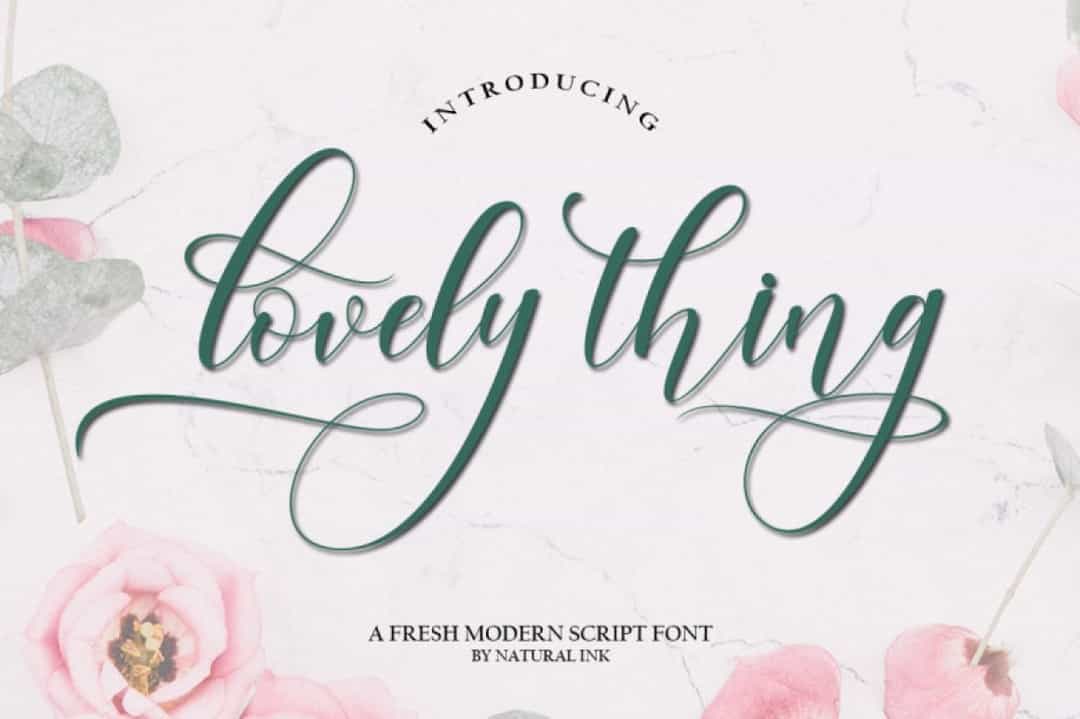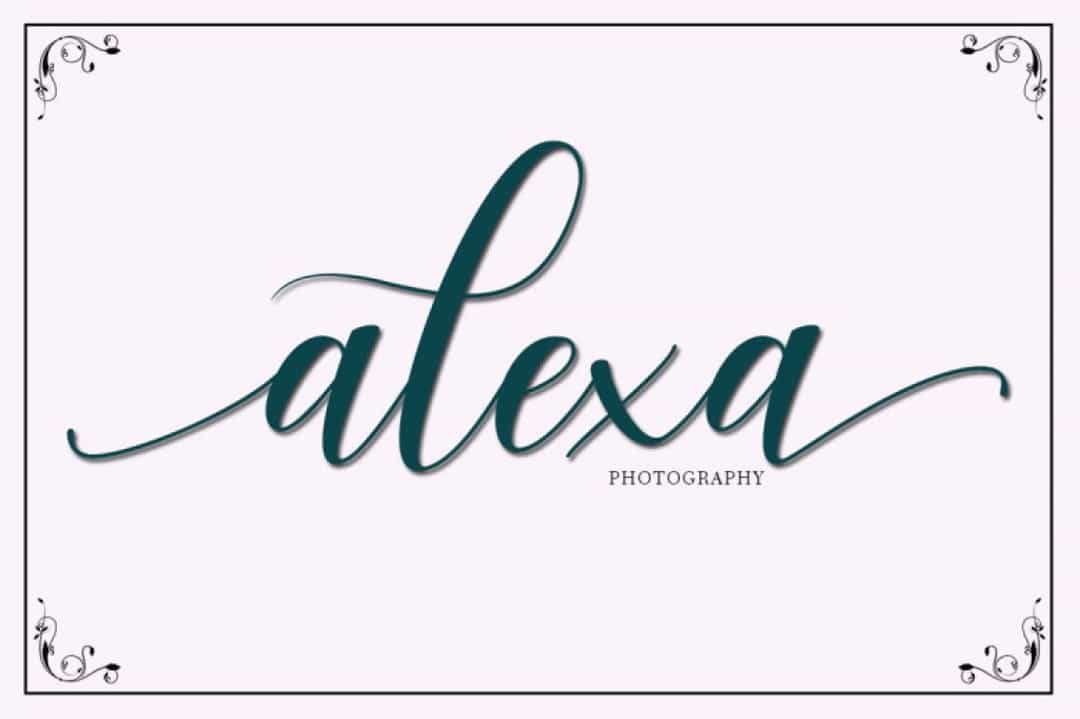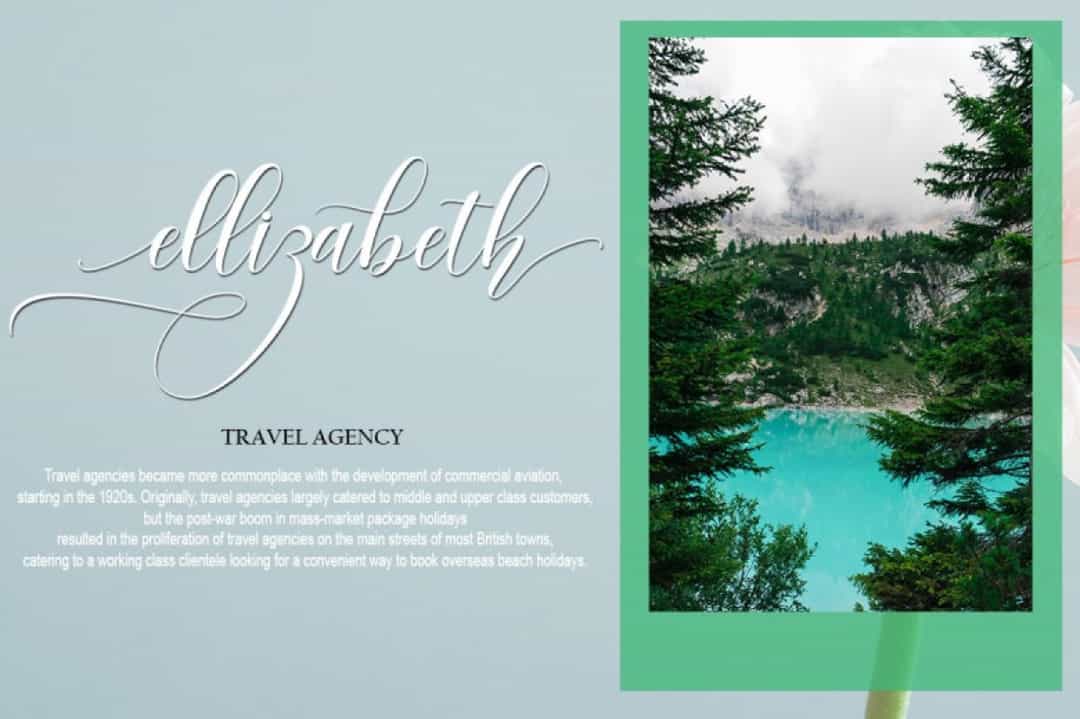
Lovely Thing script font is a contemporary calligraphy style featuring Regular font. Easily read and beautifully designed with its gorgeous swash, this font can be used for many different applications including packaging labels, logos wedding invitations and headlines as well as branding purposes, signs labels signature books posters book covers quotes etc.